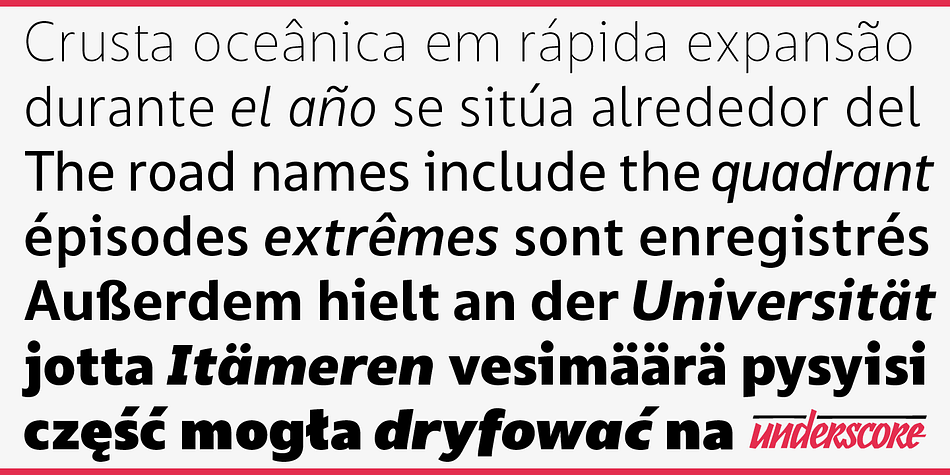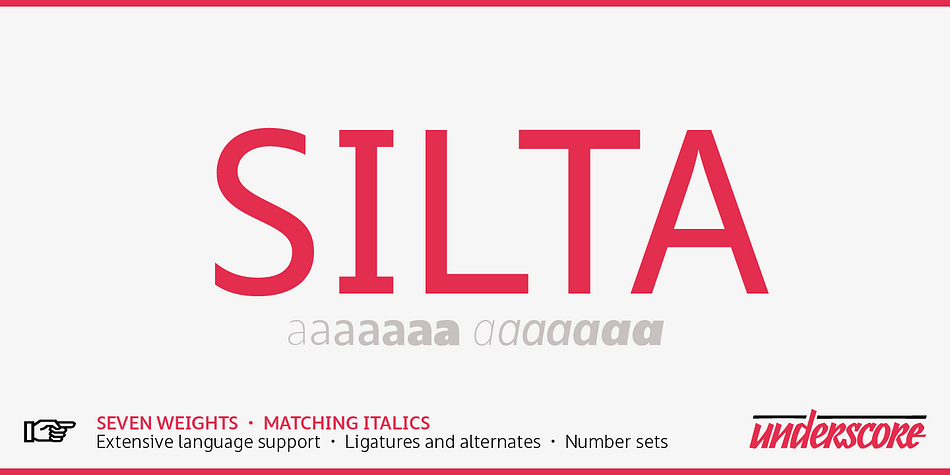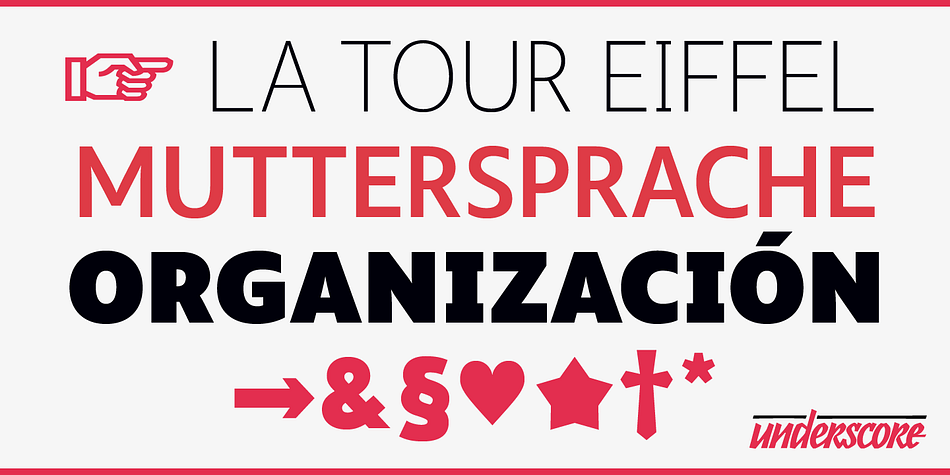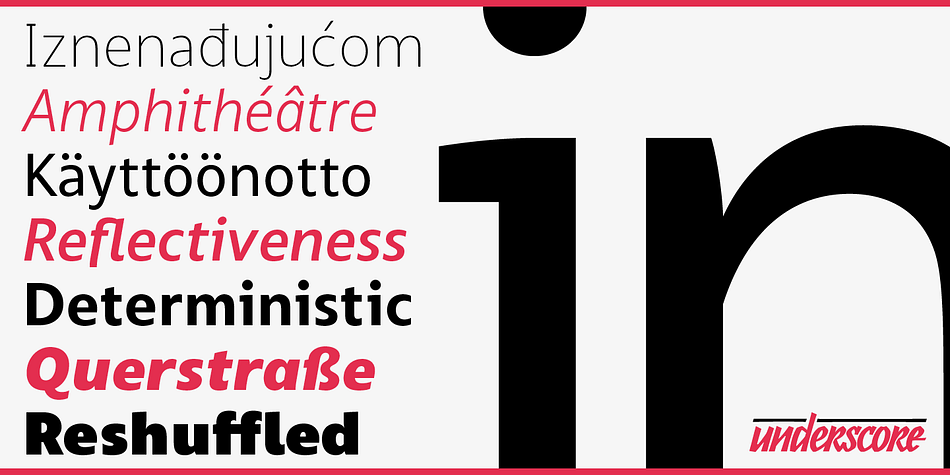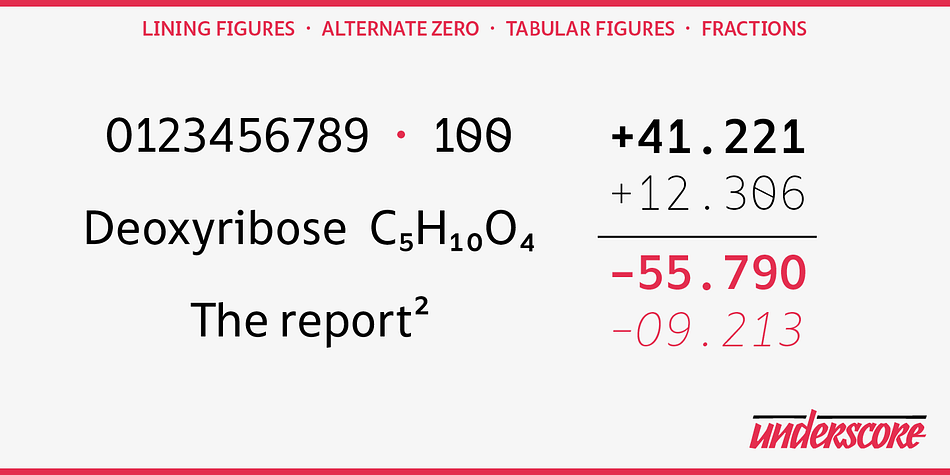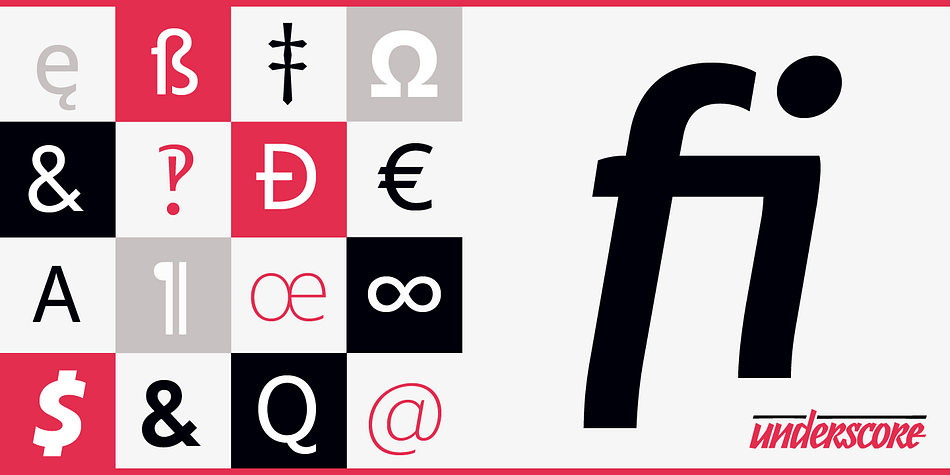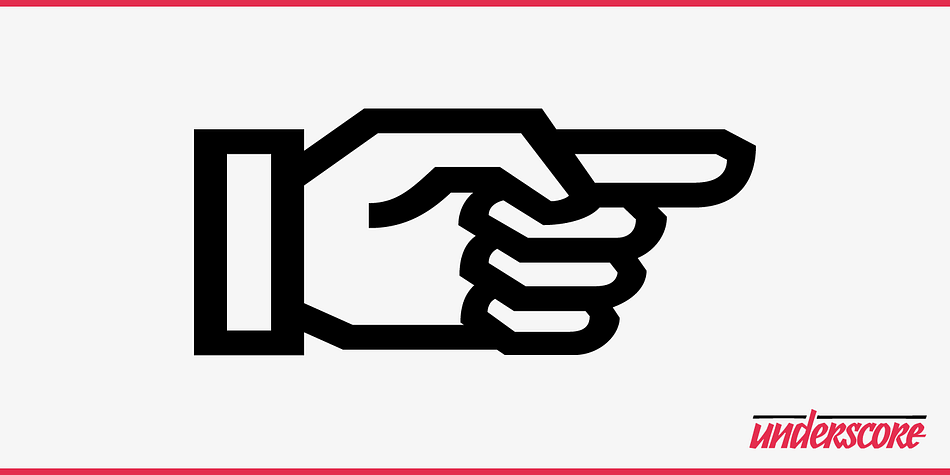
Designed by Johannes Neumeier, Silta is a sans serif font family. This typeface has fourteen styles and was published by Underscore.
Silta is a humanist sans designed for interface typography and screen legibility. Sharp where it counts, flexible where you need it — and always a friendly tone. With seven weights and matching italics it has the range required for complex typographic hierarchies. Wide language support for extended latin, symbols, number sets and Opentype features make this a true work horse. The design is the outcome of research into screen reading and interface typography and shines by offering excellent legibility and unmistakable characters down to small sizes.
Silta was designed by Johannes Neumeier and is published through Underscore Type in 2018.